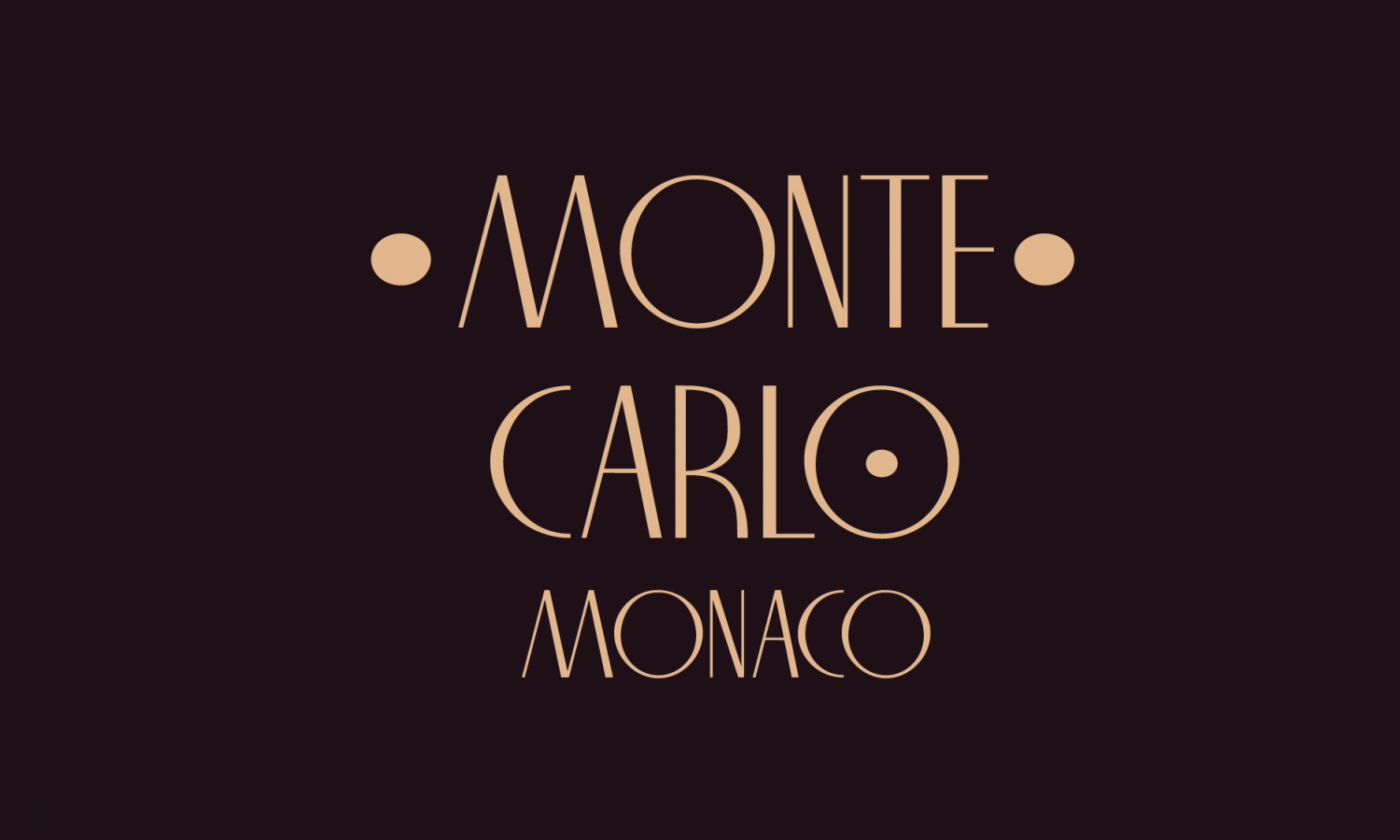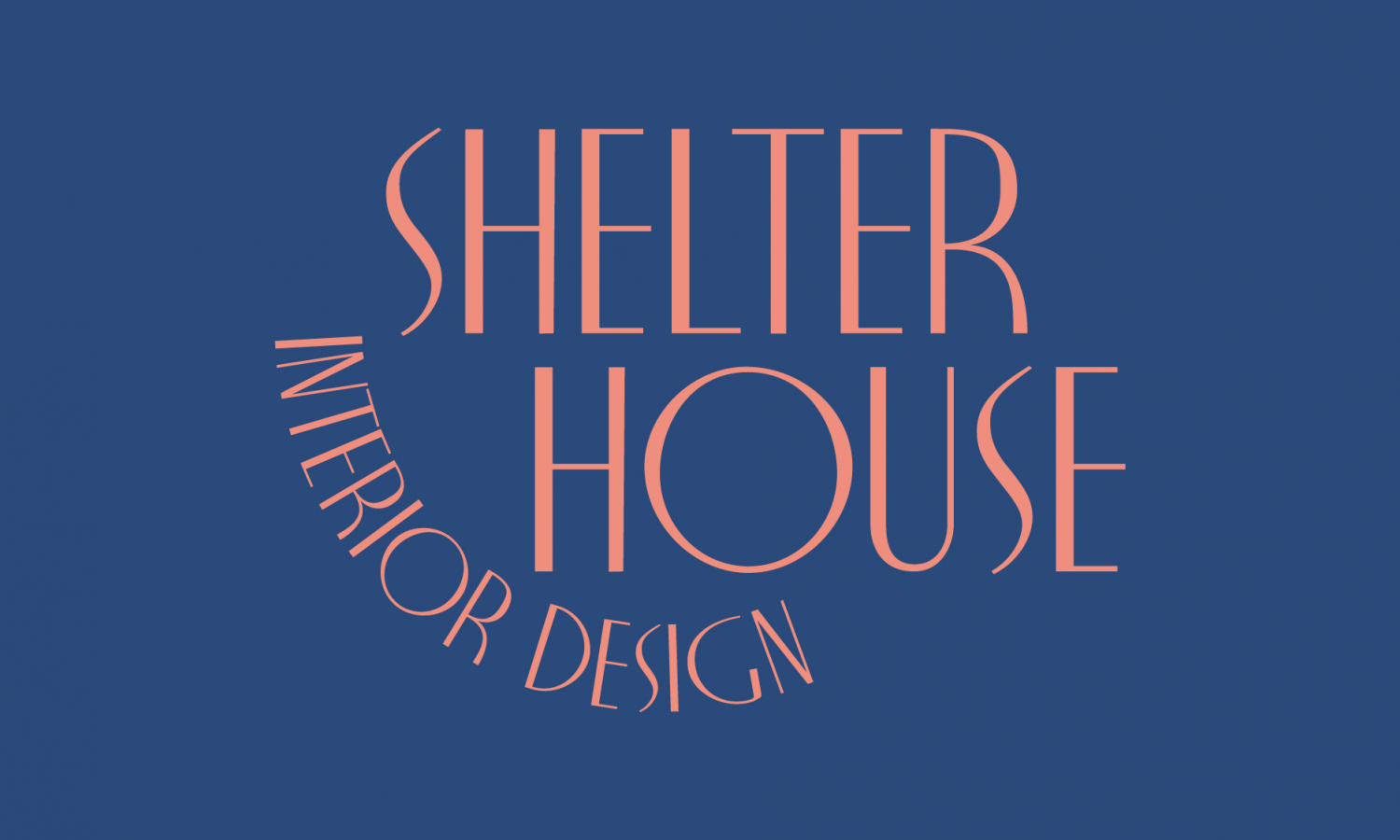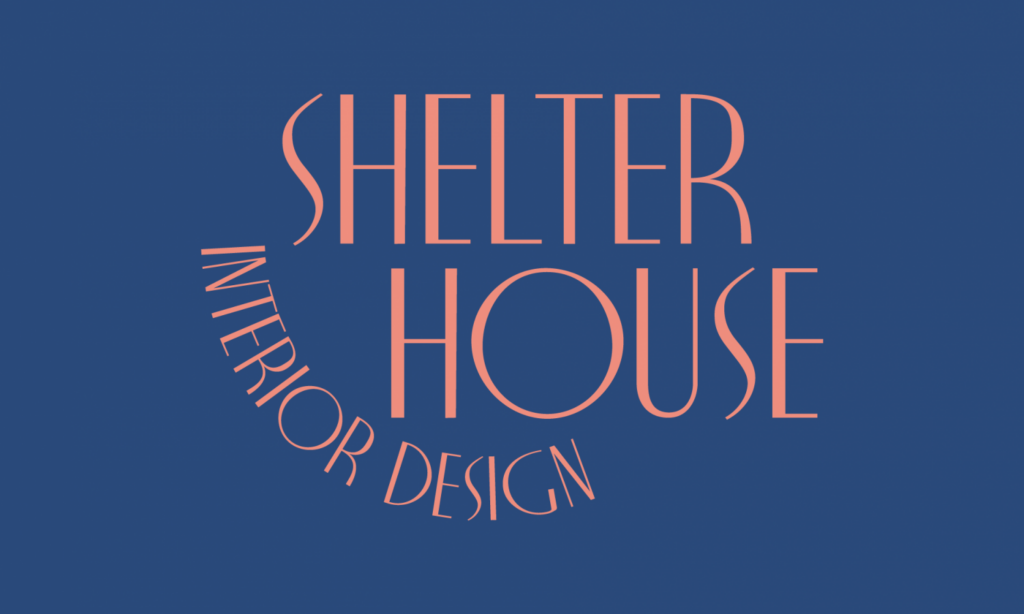
Nocturne
About Nocturne
The font is based on an alphabet from a mid1920s art deco book. The original seemed to have tapering strokes but it was too small to be sure; I made all strokes parallel & orthogonal and slightly modified the original in a number of other ways to bring…